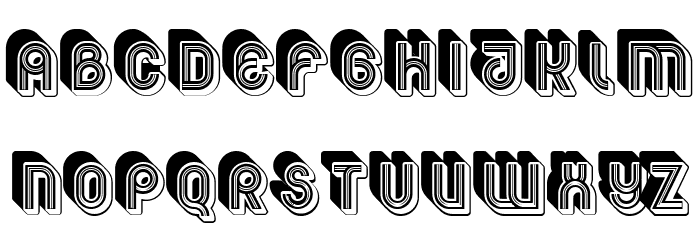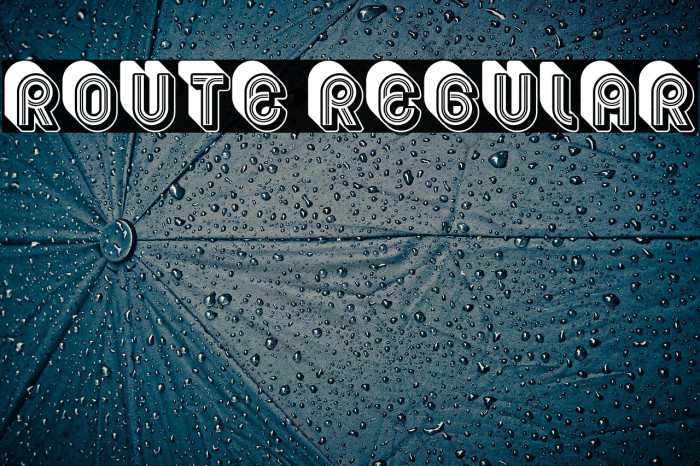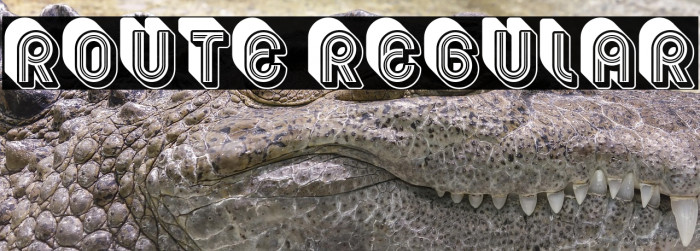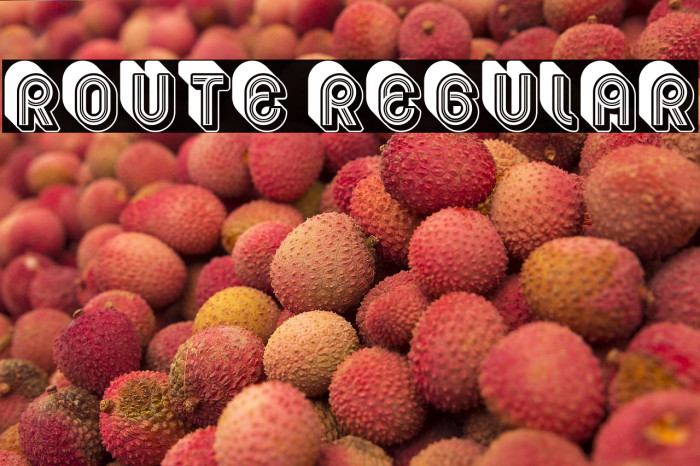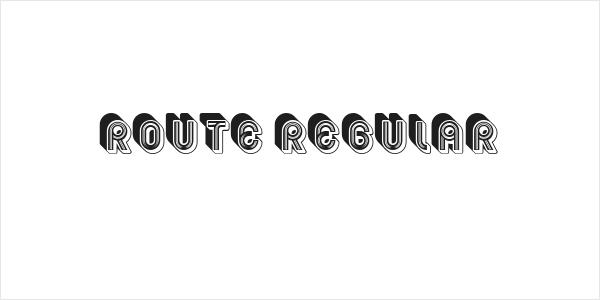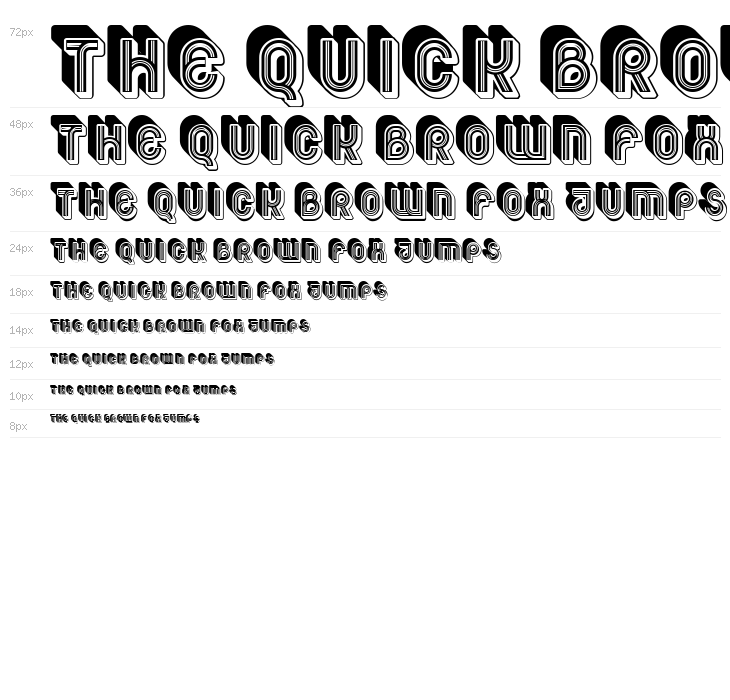
Route Regular Font
Route Regular Description
This font features a bold, three-dimensional appearance with a distinct retro vibe. Each character is outlined with multiple layers, creating a shadow effect that gives depth and a sense of movement. The geometric shapes and clean lines contribute to a modern yet nostalgic feel, reminiscent of vintage signage or arcade game aesthetics. The uppercase letters are particularly striking, with a uniform height and width that enhances their visual impact. The font's playful and dynamic style makes it ideal for projects that require a standout, eye-catching design.
| Proposed Projects | Perfect for retro-themed posters, video game graphics, branding for vintage-inspired products, and eye-catching headlines. |